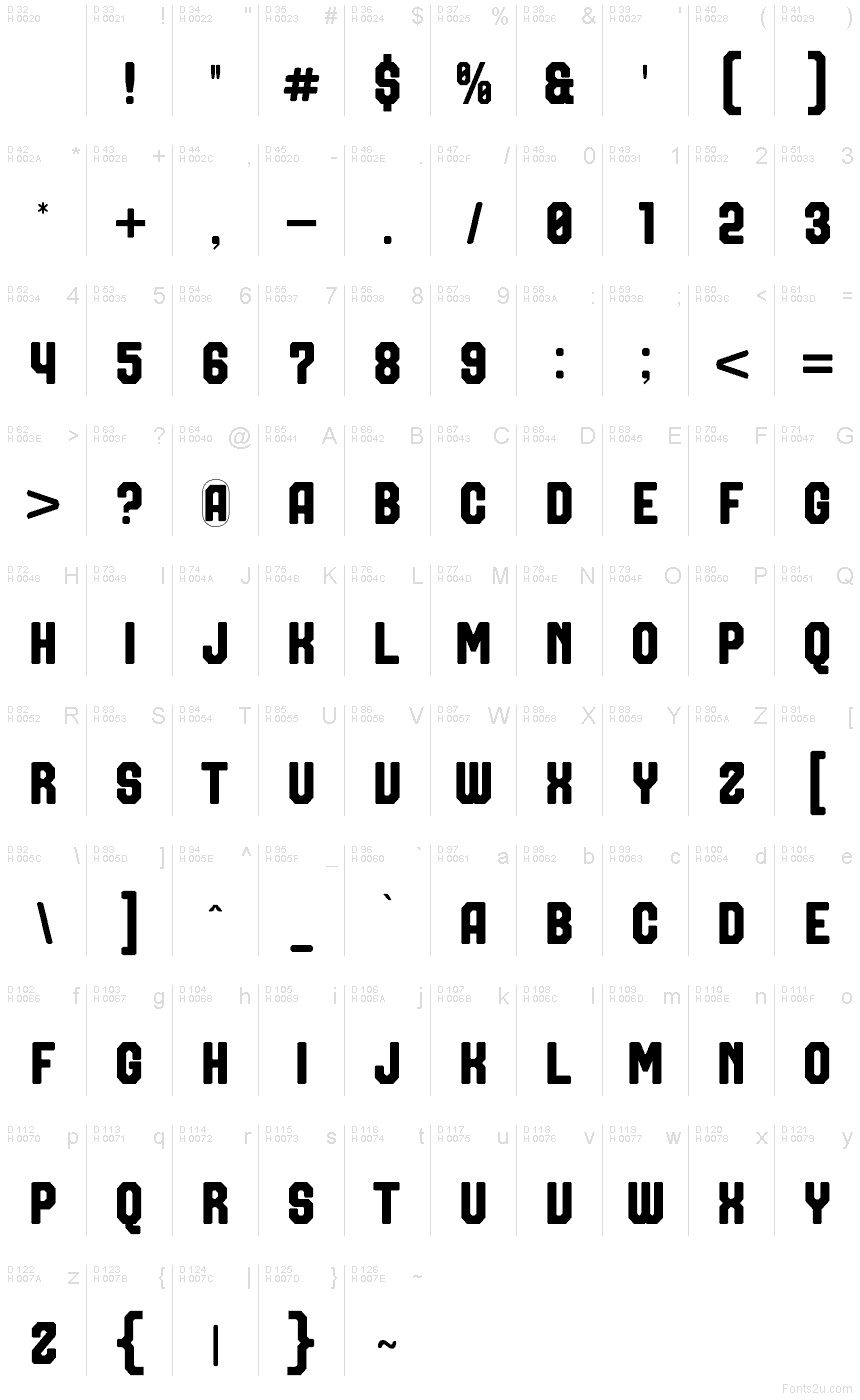
Rekilash
Rekilash font by Storytype Studio is a techno display font with an industrial, geometric appearance. It’s bold and condensed with a strong presence that gives off power in any context. Its stylish look remains evident even in smaller sizes which makes it perfect for attention grabbing text. Designed to be modern and versatile, Rekilash is a true problem solver.